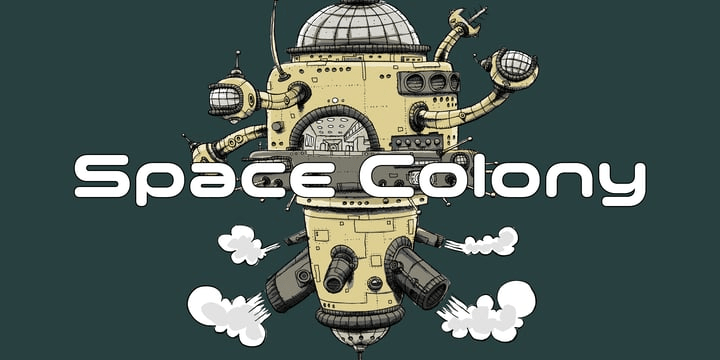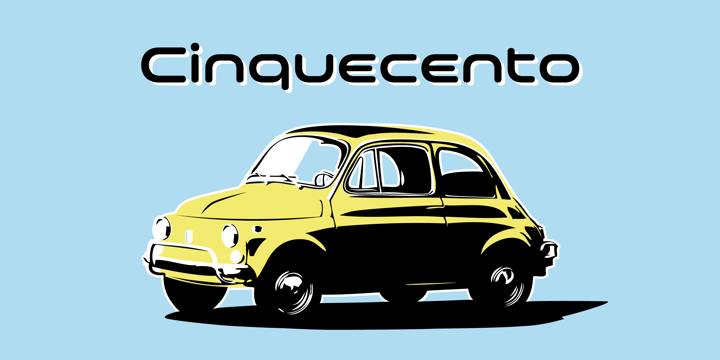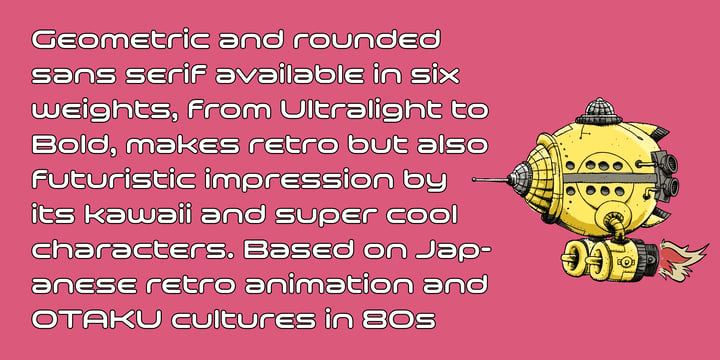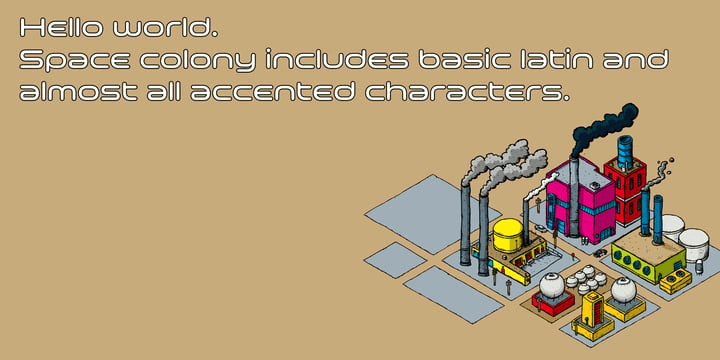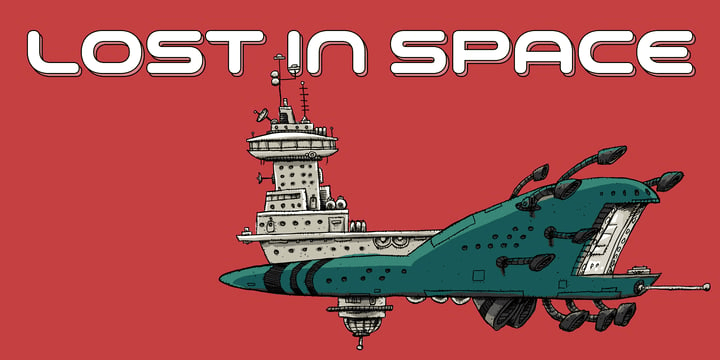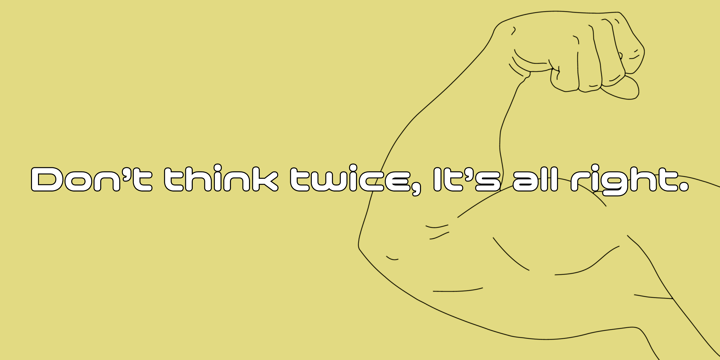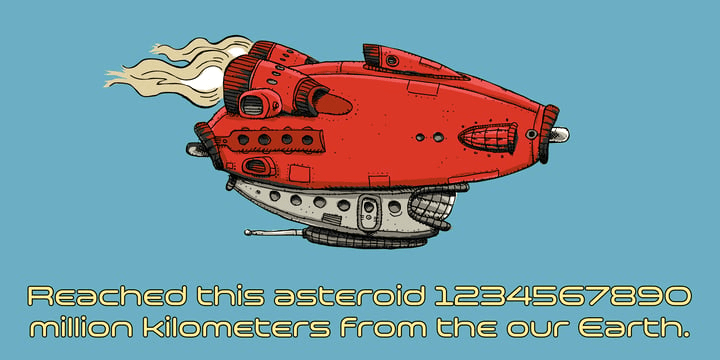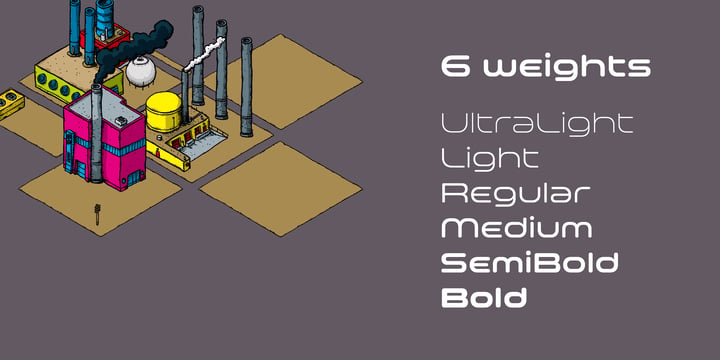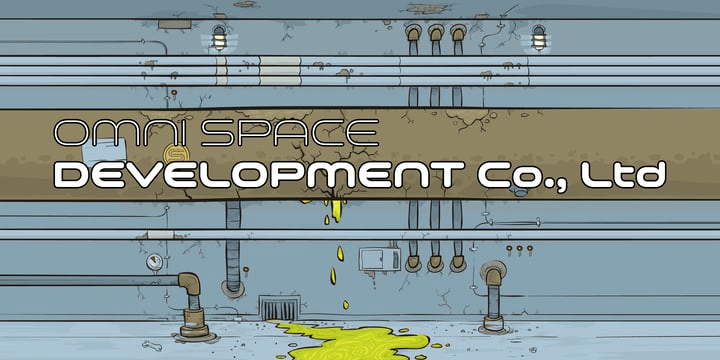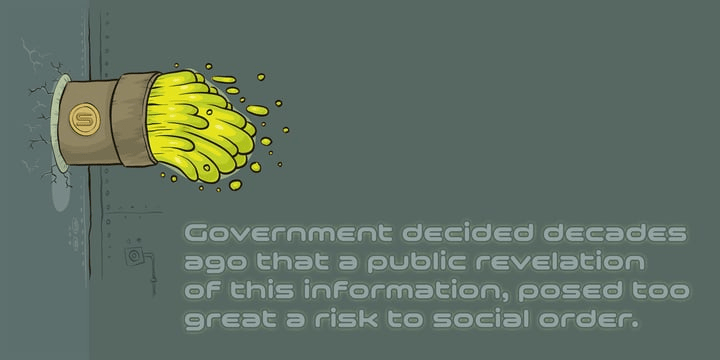
Space Colony
Before putting pen to paper, I had imagined this font being used for side characters in retro robot animations like Gundam or Ideon.
Those early sketches, however, ended up in a PENDING folder—a few years passed before they saw the light of day.
At the start of 2011, I returned to the project, refining the shapes and details while staying true to the original vision. The result is Space Colony—a wide, geometric font family that captures a futuristic spirit.
Consisting of six weights, Space Colony was designed with applications in games, movies, logos, and other sci-fi-themed projects in mind.
Yet its rounded forms also give it a soft, cute charm, making it equally well-suited for cartoons, animations, and character merchandise.
Just as its name suggests, Space Colony bridges the gap between the futuristic and the playful, ready for use in both bold and friendly design contexts.